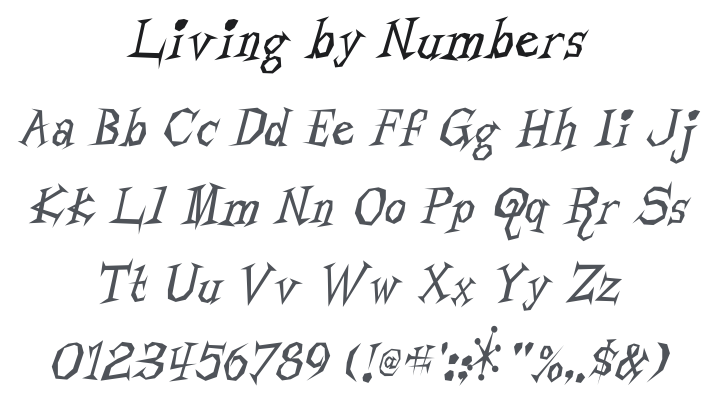
Living by Numbers Font
About Living by Numbers
Living by Numbers is a fragmented beatnik display typeface where Latin serifs thrust wildly in every direction and jagged lines give each letterform a twitchy, anxious energy — like handwriting scrawled by someone in a state of creative frenzy. Its crooked, restless character feels raw and expressive. Perfect for beat poetry aesthetics, punk zines, underground art posters, experimental editorial design, and anything needing edgy, unhinged energy.